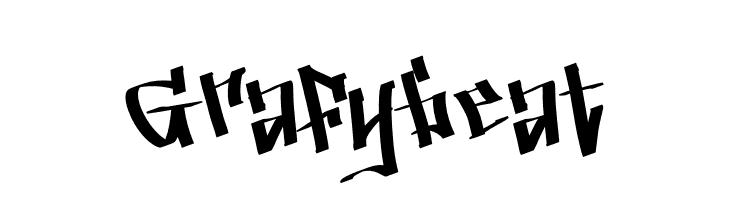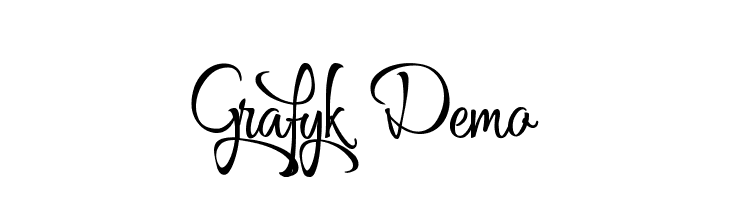
A dynamic oblique-italic font with sharp angles and elongated forms.
A symbol font with office, document, and weather icons in a clean, outlined style.
A playful, hand-drawn outline font with a whimsical and dynamic style.
An artistic, sketch-like font with overlapping lines and curves.
A bold, graffiti-inspired font with sharp, angular lines and dynamic movement.
An elegant script font with flowing, interconnected letters and ornate uppercase characters.
A modern, geometric font with rounded edges and a condensed style.
A bold, modern font with thick strokes and a strong visual impact.
A bold, modern font with a geometric and condensed style.